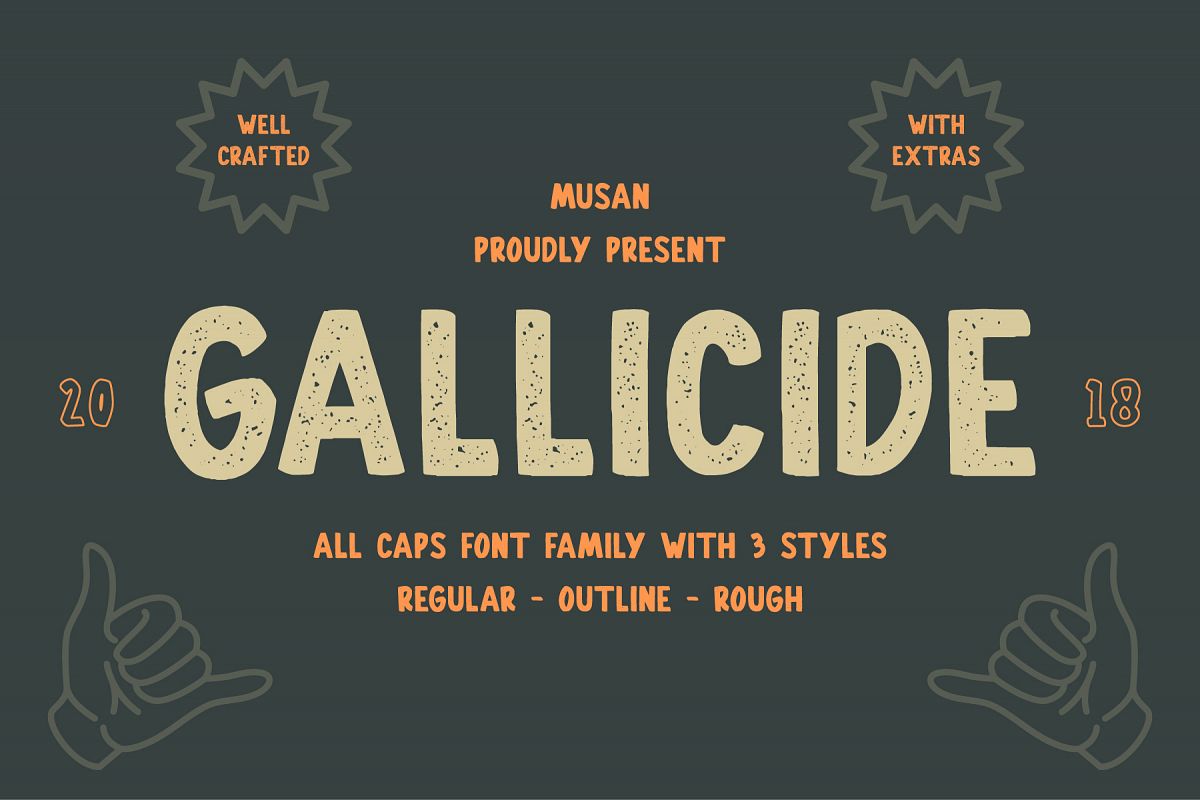
Created By MuSan
Gallicide With Extras
Gallicide is handmade modern vintage textured display typefaces, which is combining the style of classic typography with an modern handlettering style.
Gallicide Features :
• Regular , Outline, Rough
• Numerals & Punctuations
• Accents (Multilingual characters)
• Extra
• Editable Badge Template